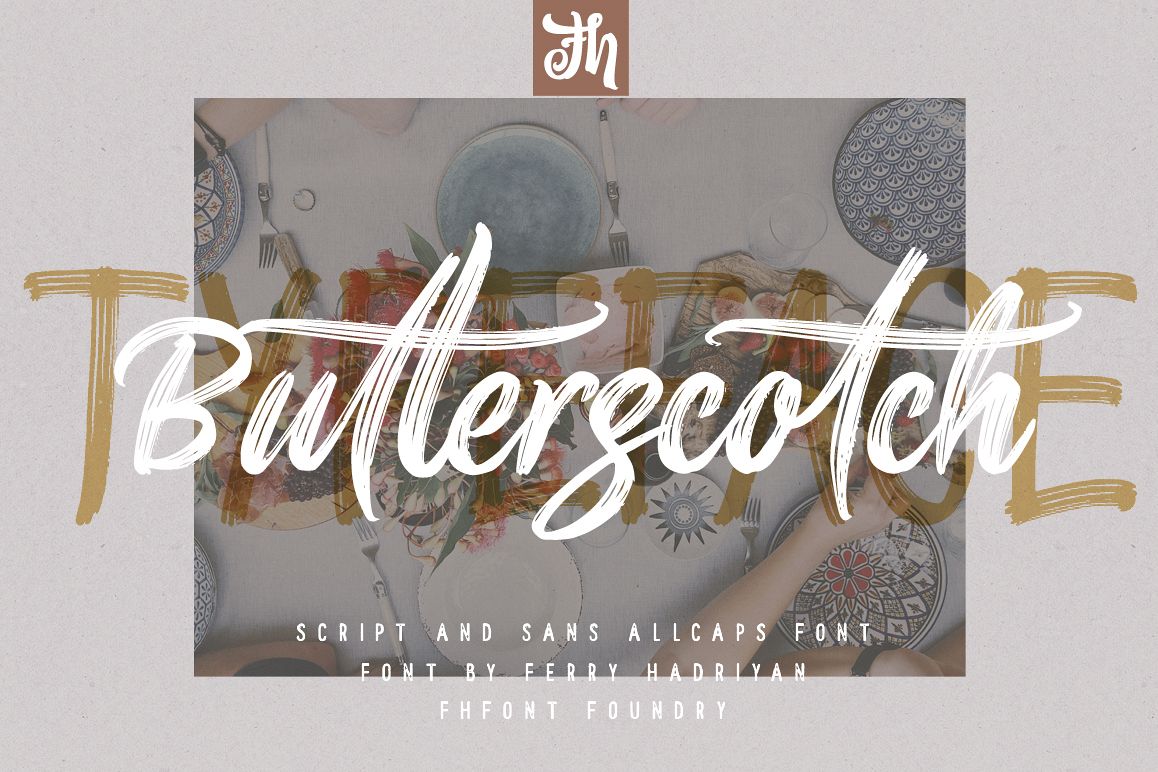
Butterscotch - Handwritten Font
Butterscotch Swashes
Butterscotch Allcap
Butterscotch Script
Butterscotch - Handwritten Font
Butterscotch is Script and Sans Allcaps Font with Handlettering Brush Style, with opentype feature include of the font. Suitable for design, element design, wedding, event, t-shirt, logo, badges, sticker, and awesome work, etc...